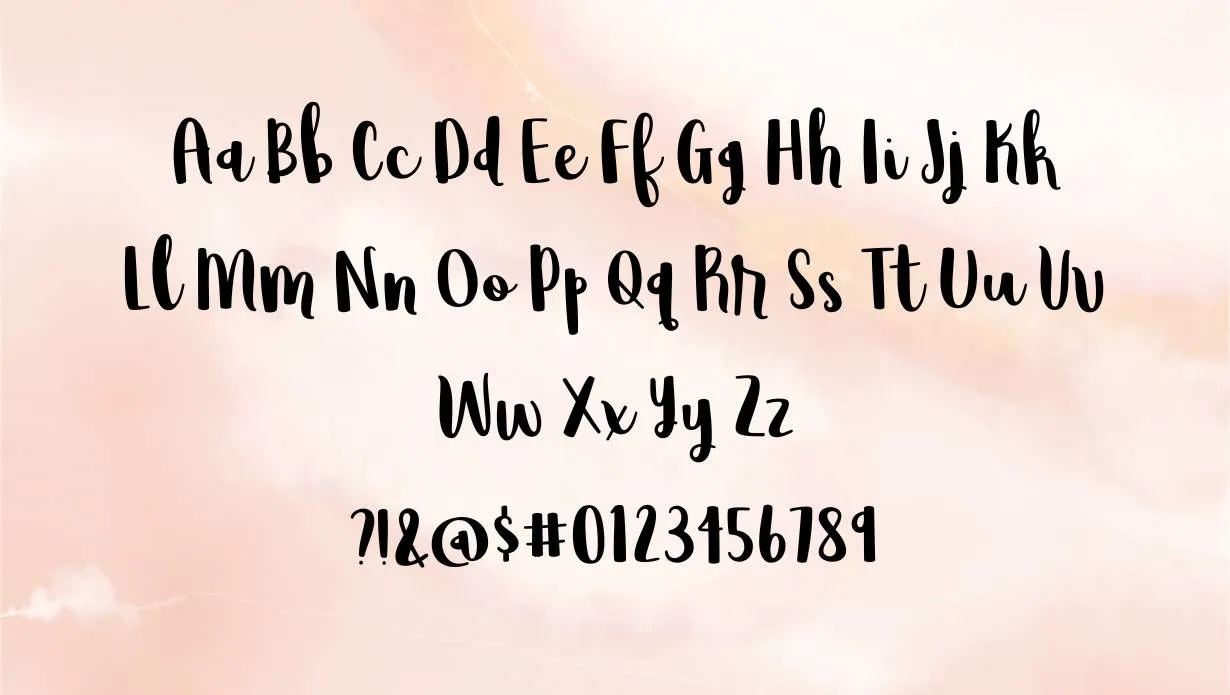
Wildemount Font is a typeface with a unique and decorative style, often used in projects that aim to evoke a sense of fantasy, adventure, or storytelling.
This font adds an element of creativity and whimsy to your design work, making it a great choice for projects that want to transport the audience to a world of imagination.
| Name | Wildemount Font |
| Designer | Brittney Murphy Design |